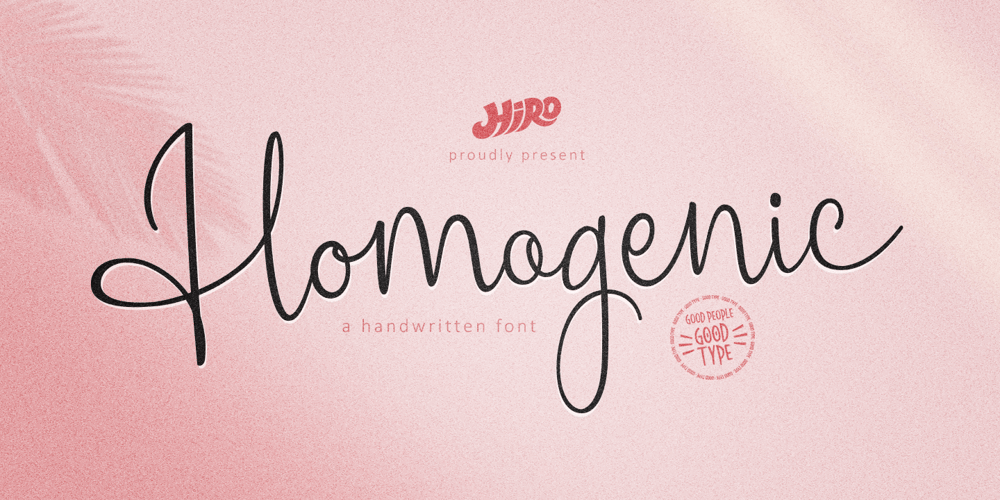
Homogenic Font Family was designed by Chairul Ashar and published by HIRO.std. Homogenic contains 2 styles and family package options. Homogenic is a new casual modern script font.This font describes about girly, feminist, elegant, dynamic, humanist, easy to use and will bring a good harmony when the letters are connected and paired each other. FEATURES- Support Opentype Features- Support Ligatures- Automatic stylistic alternatesbb dd ee ff gg hh ii kk ll mm nn oo pp rr ss tt zz ah ak al am an ar ba bh bl br bt cl ch eh ek el em en gh ght gl gn gr gt ie ih ik il im in ir jt lt nt oh ok ol om on or or ov ow se sh sk sl sn sp sr st ue uh uk ul um un ur ve we wi wo yl yn yt Sl Sh Sk- Uppercase- Lowercase- Numbering and Punctuations- Multilingual Support- Works on PC or MacUSEHomogenic works great in any branding, logos, magazines, apparel, wedding designs, social media posts, advertisements, product packaging, product designs, label, photography, watermark, invitation, stationery and any projects that need handwriting taste.